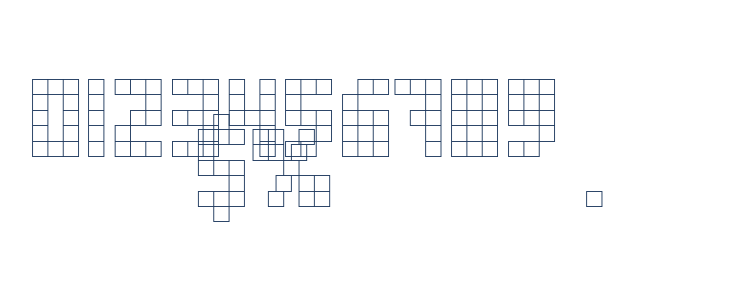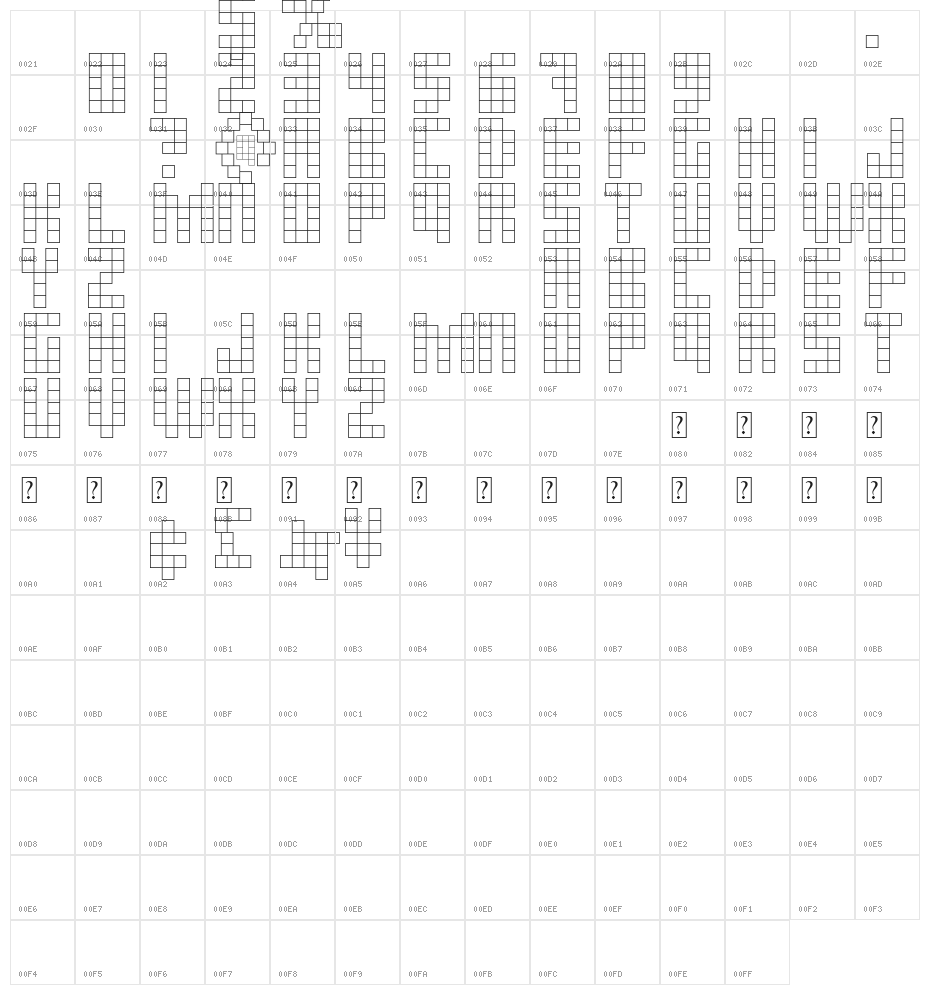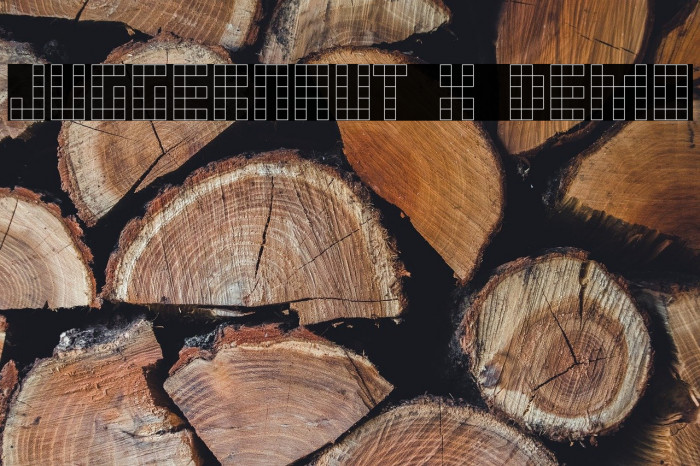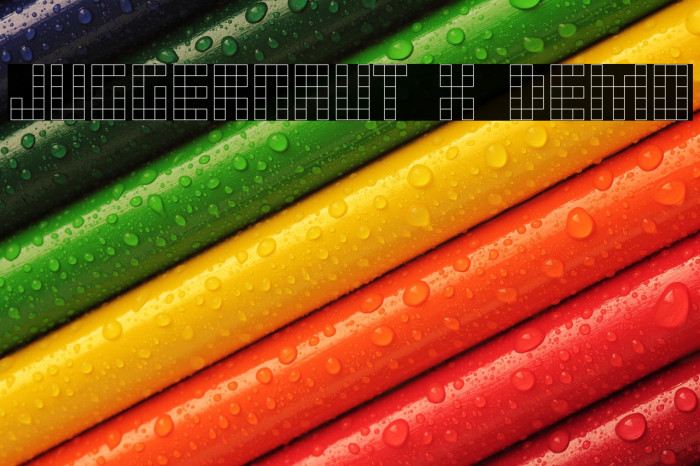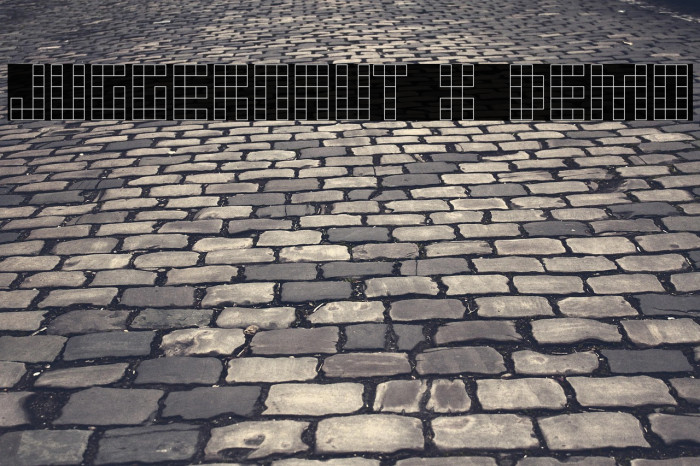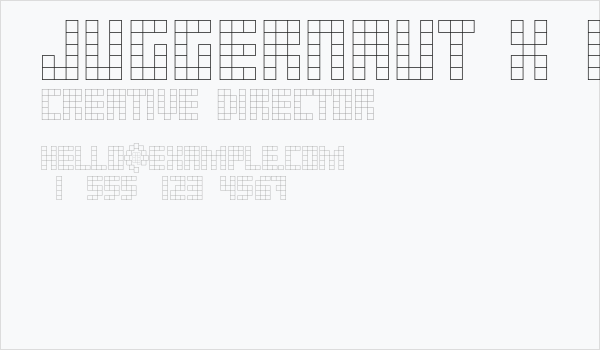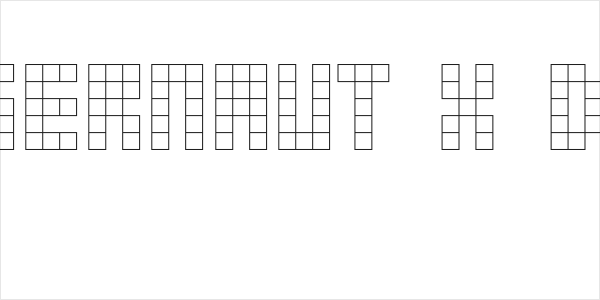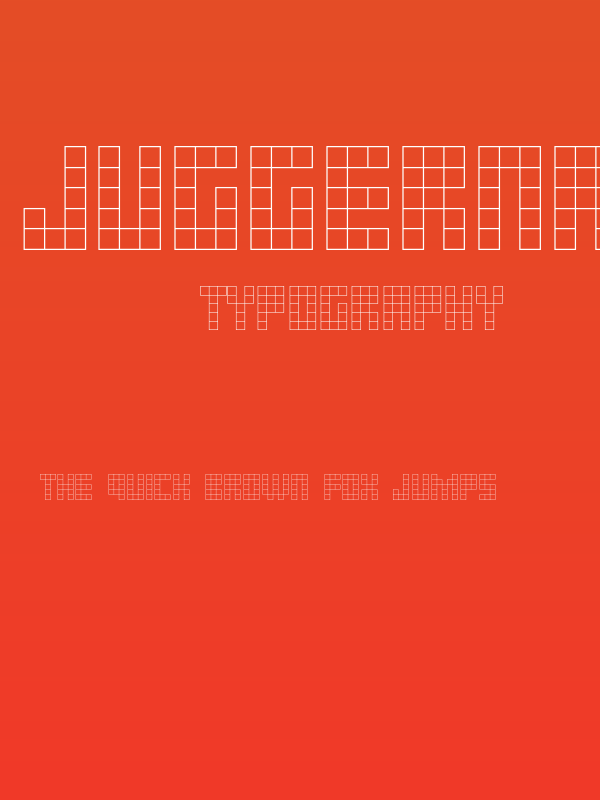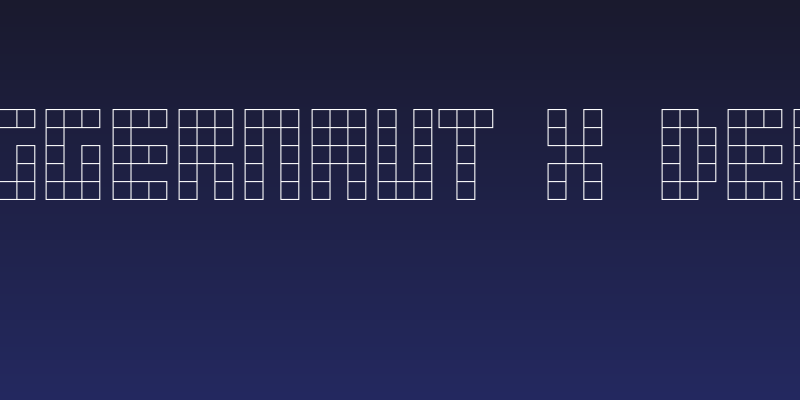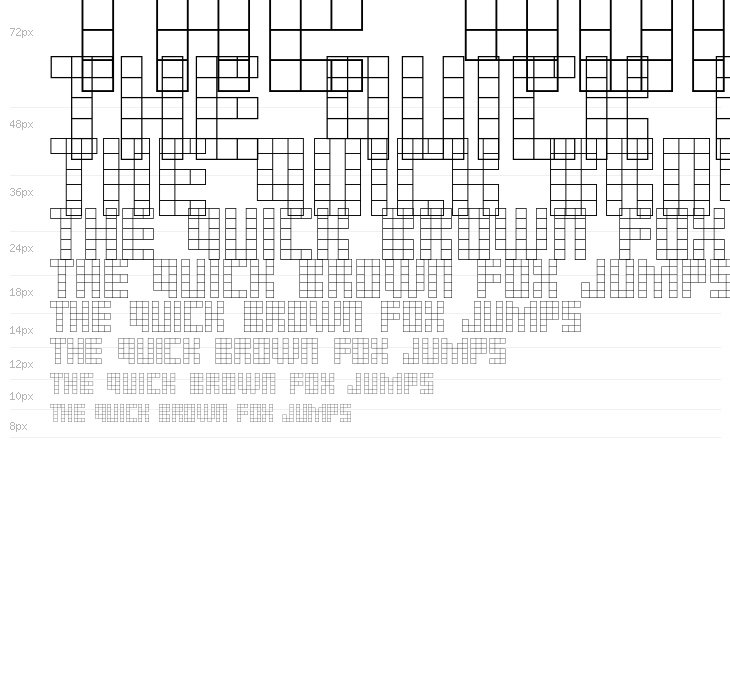
JUGGERNAUT x demo Font
JUGGERNAUT x demo Description
This font features a unique grid-based design, where each character is constructed from a series of small squares, creating a pixelated effect. The geometric structure gives it a digital, retro appearance reminiscent of early computer graphics or arcade games. The uniformity of the squares provides a consistent and cohesive look across all characters, including uppercase, lowercase, numbers, and special symbols. This style is particularly eye-catching and can be used to convey a sense of nostalgia or a futuristic theme. The font's rigid and structured form makes it stand out, making it ideal for creative projects that require a bold and distinctive typeface.
| Overall Style | Retro, Futuristic |
| Proposed Projects | Ideal for video game graphics, tech-themed posters, retro designs, and digital art projects. |